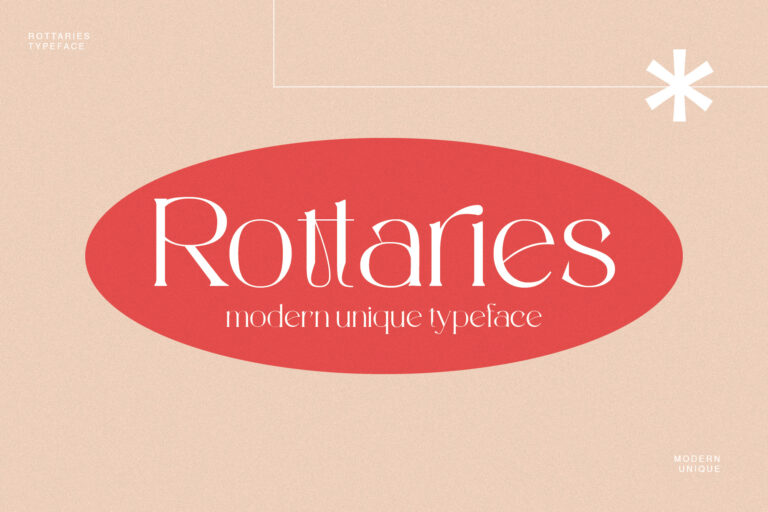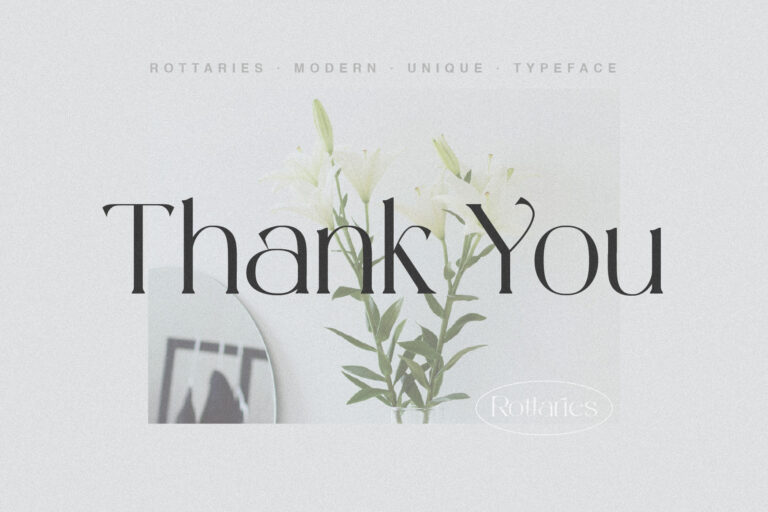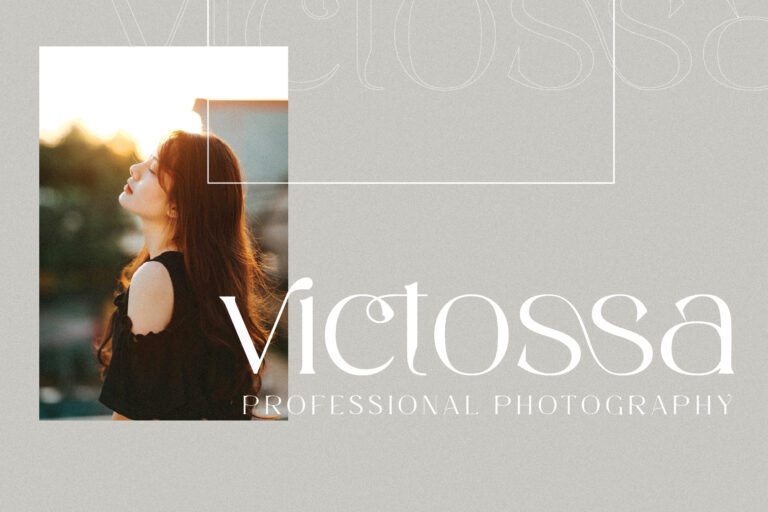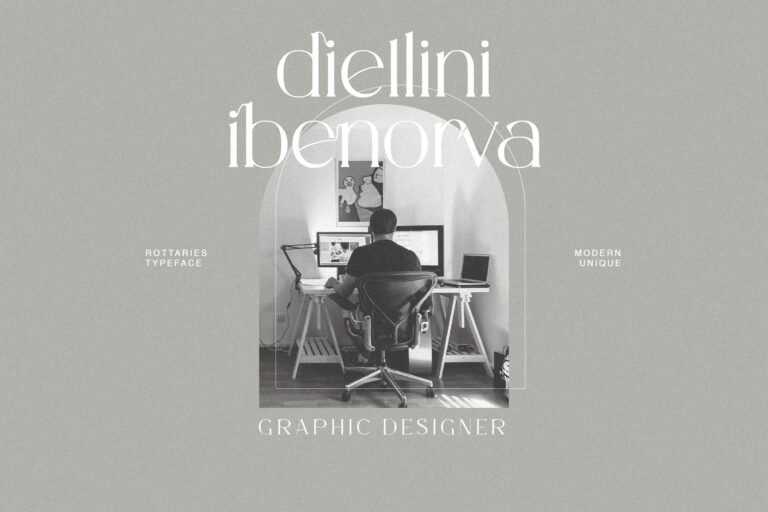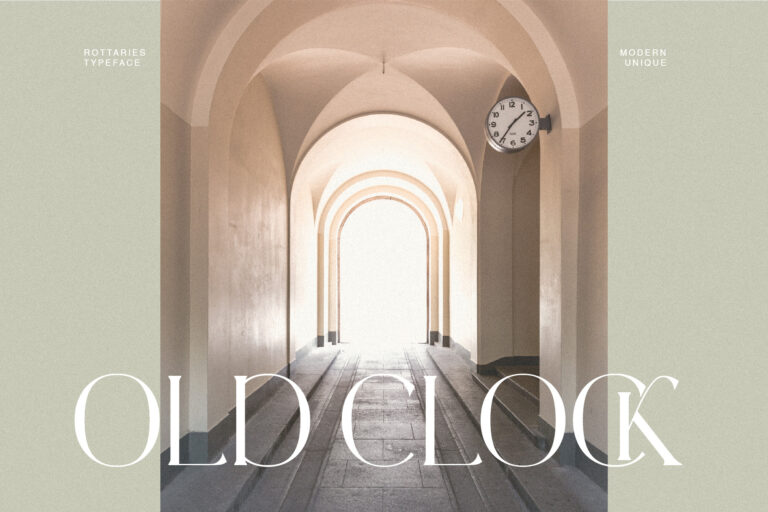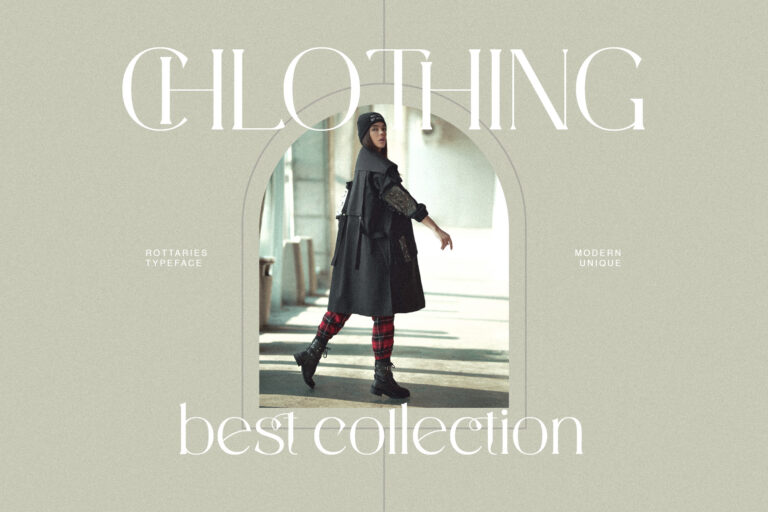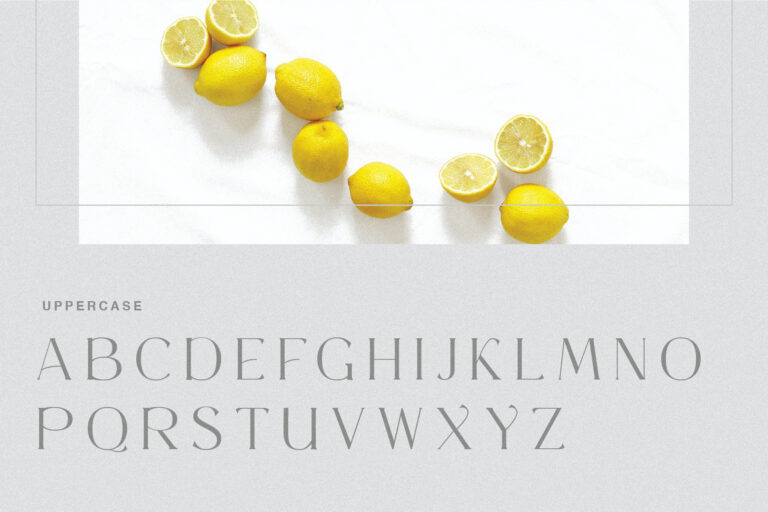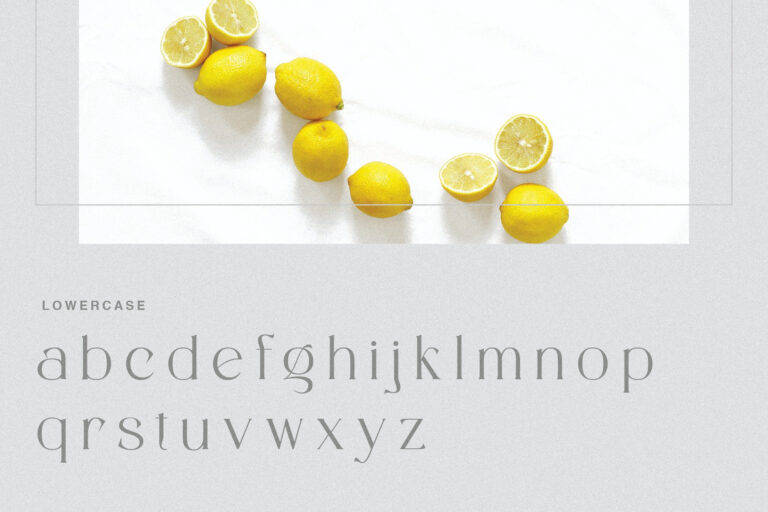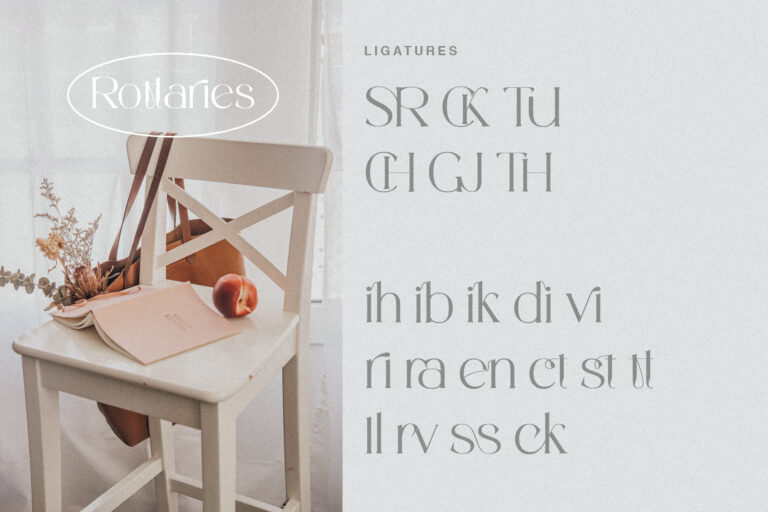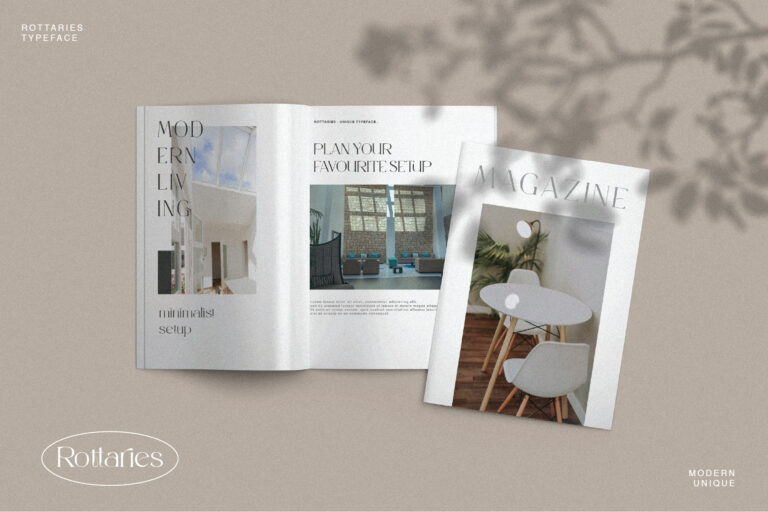
Rottaries – Modern Unique Typeface
Introducing our new “Rottaries”, Modern ligature typeface with Unique, Classy and Stylish. Is perfect for branding, logos, invitation, master heads, and more.
Rottaries Features :
– Ligatures
– Multilanguage